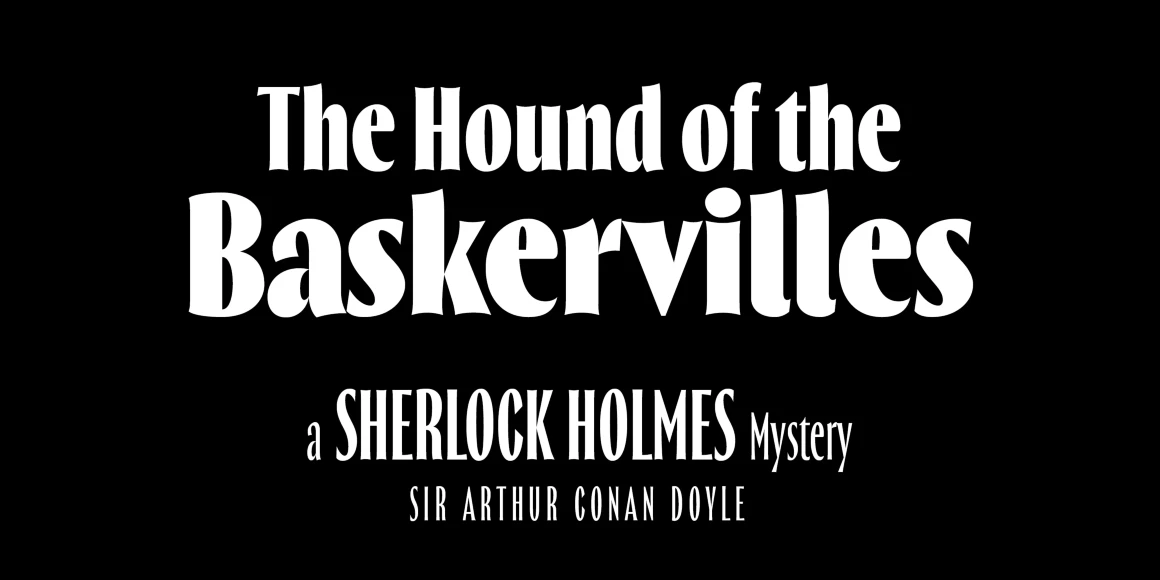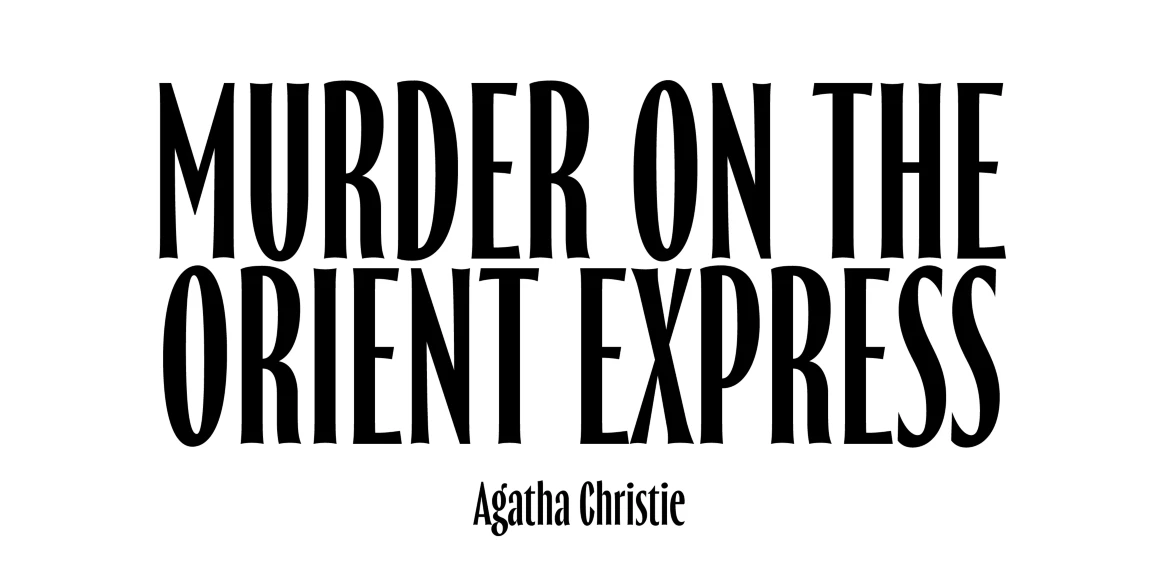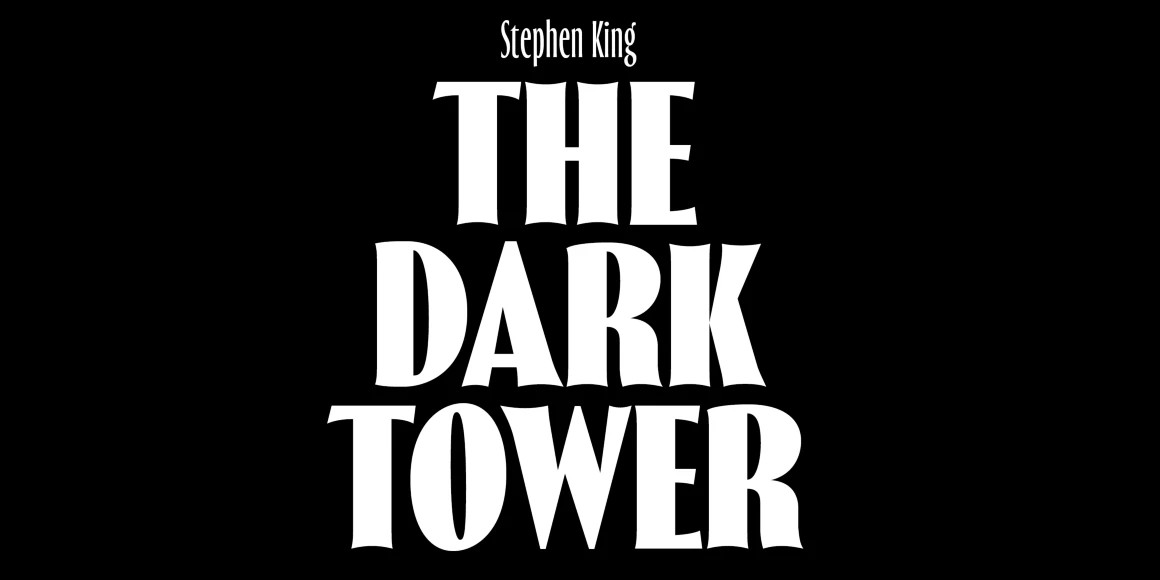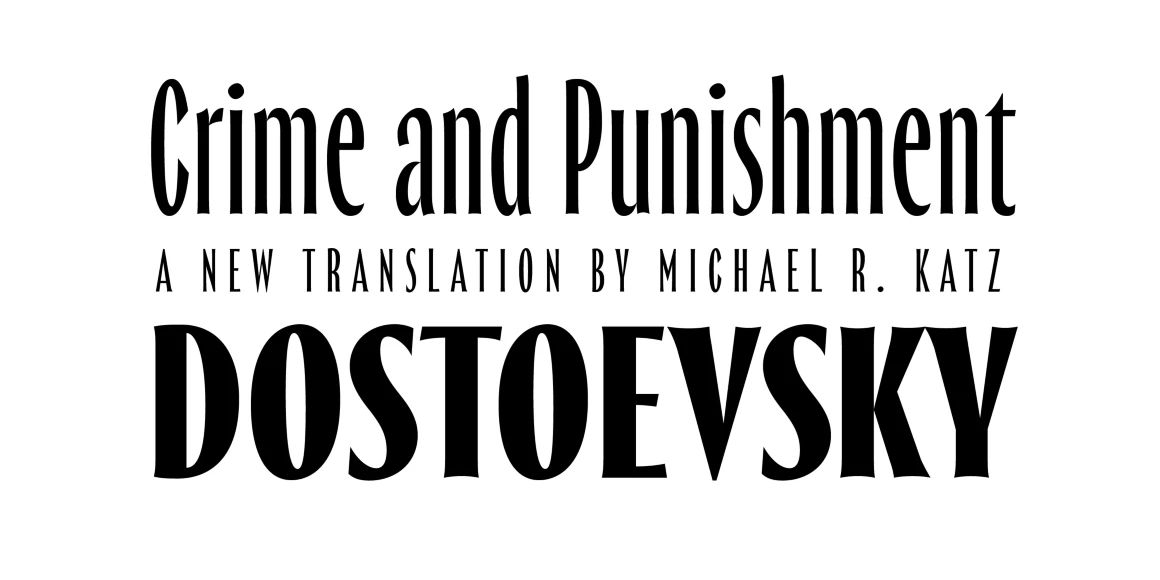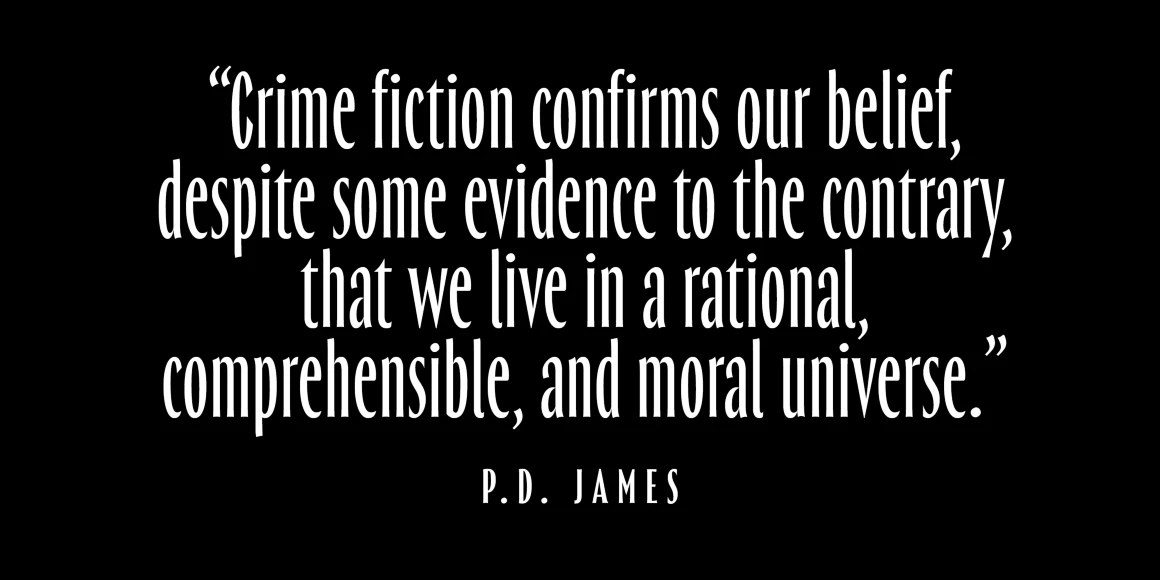
Thrillers
Thrillers is a typeface that evoques the visual landscape of Crime Novel Titles. This high contrast super condensed semi-serif design comprises 6 weights that provide you with a ton of options for your Headlines, Titles and Branding. Because of its minimal white space it is very punchy and its unusual texture captures our attention. End the suspense and go test it out! Designed by Natanael Gama, Thrillers is a display sans and sans serif font family. This typeface has six styles and was published by Ndiscover.
Designed by Natanael Gama